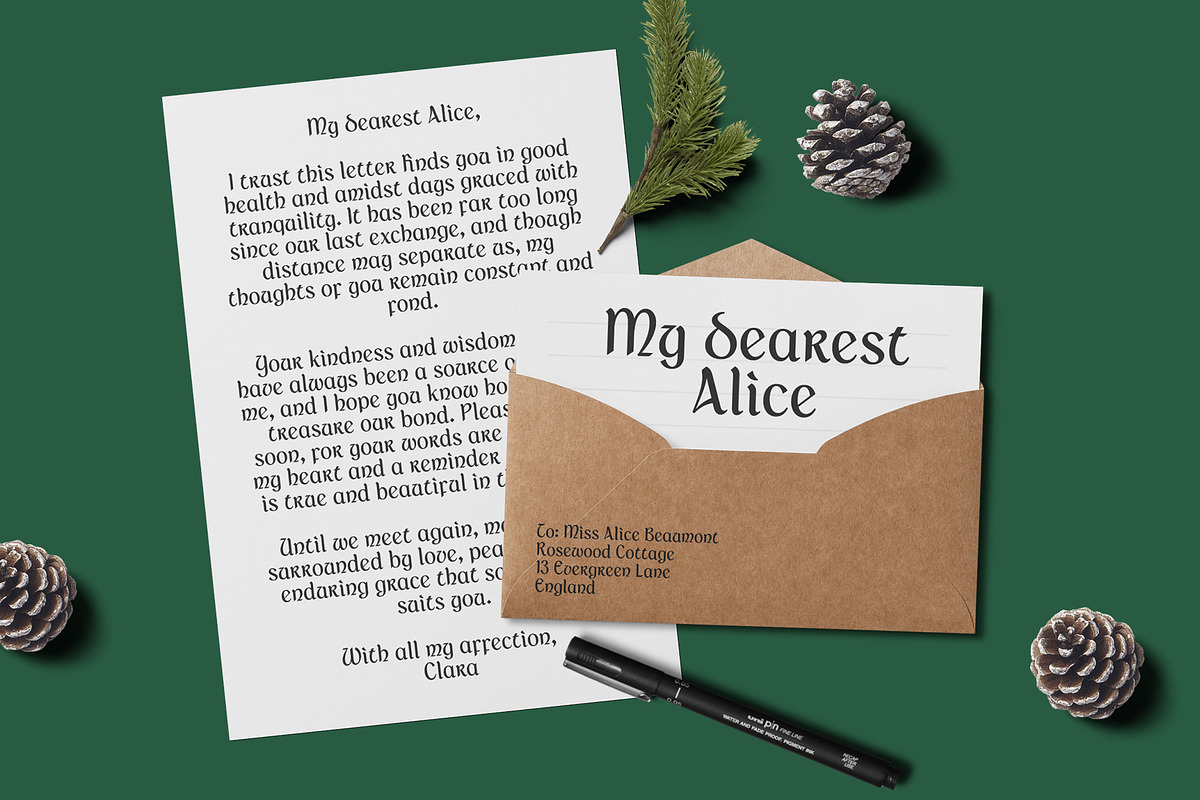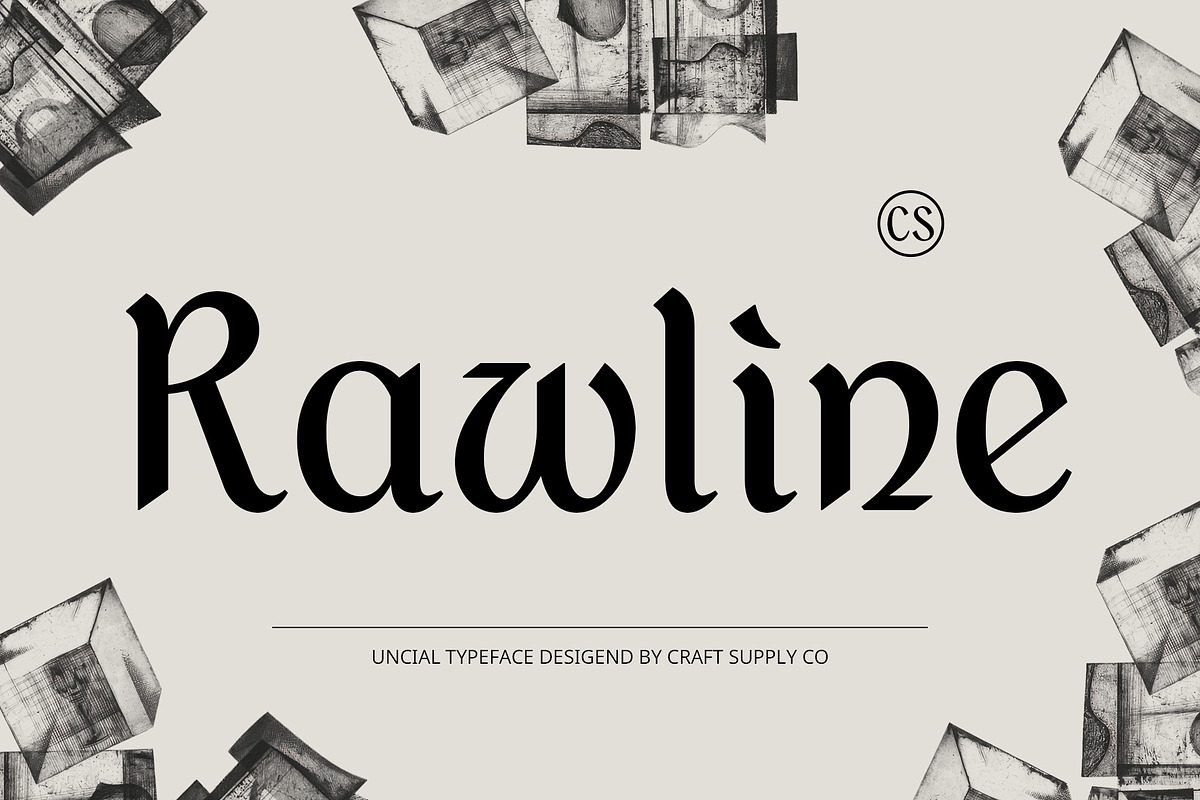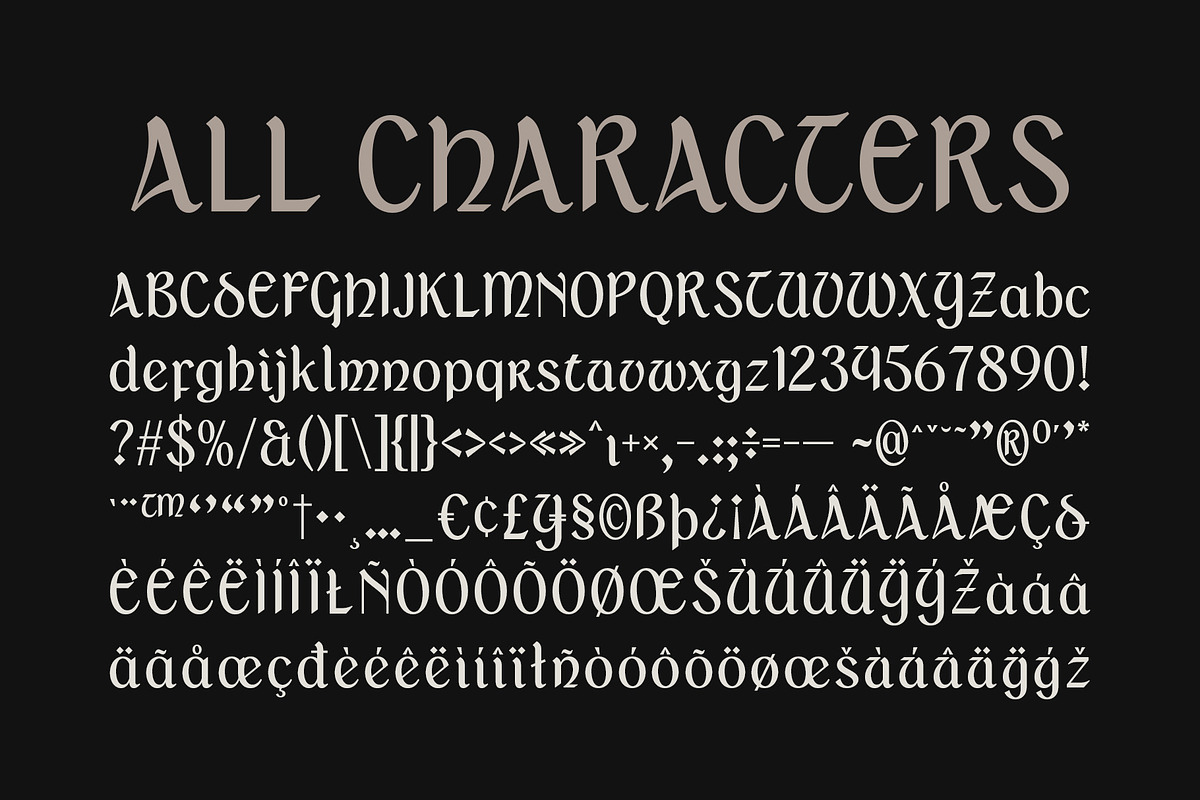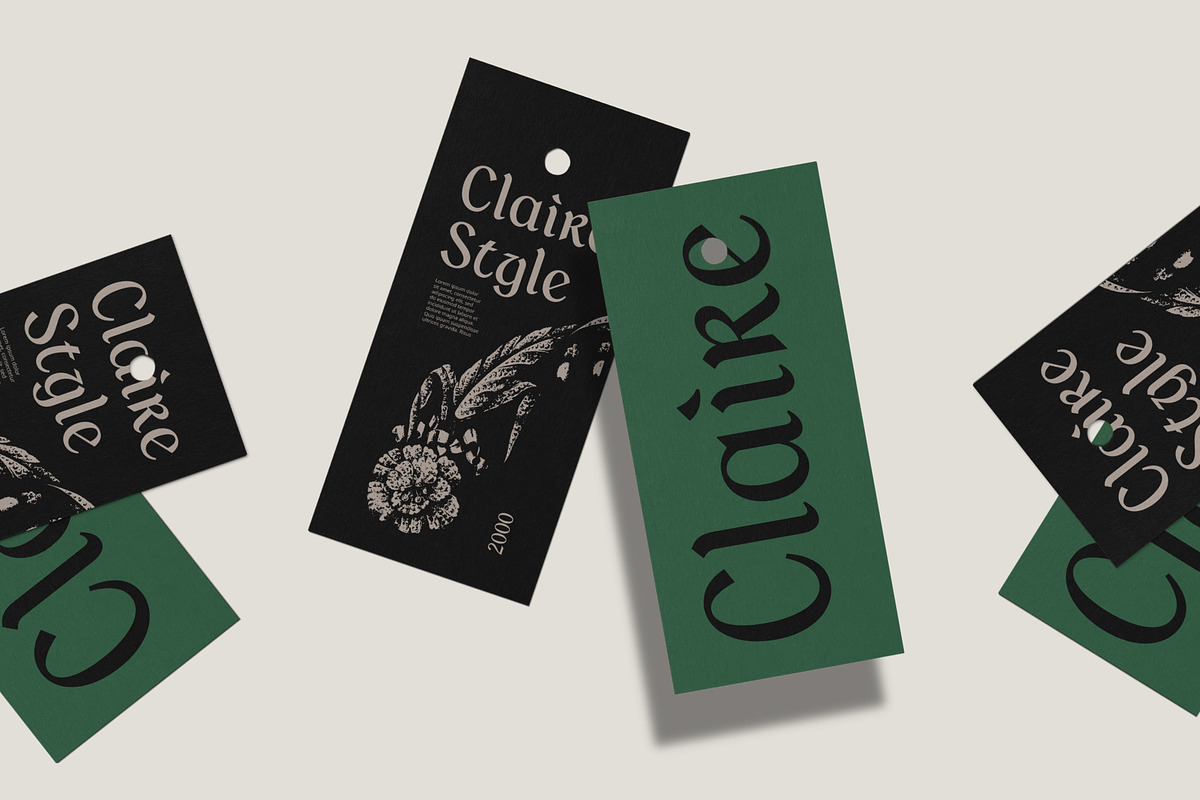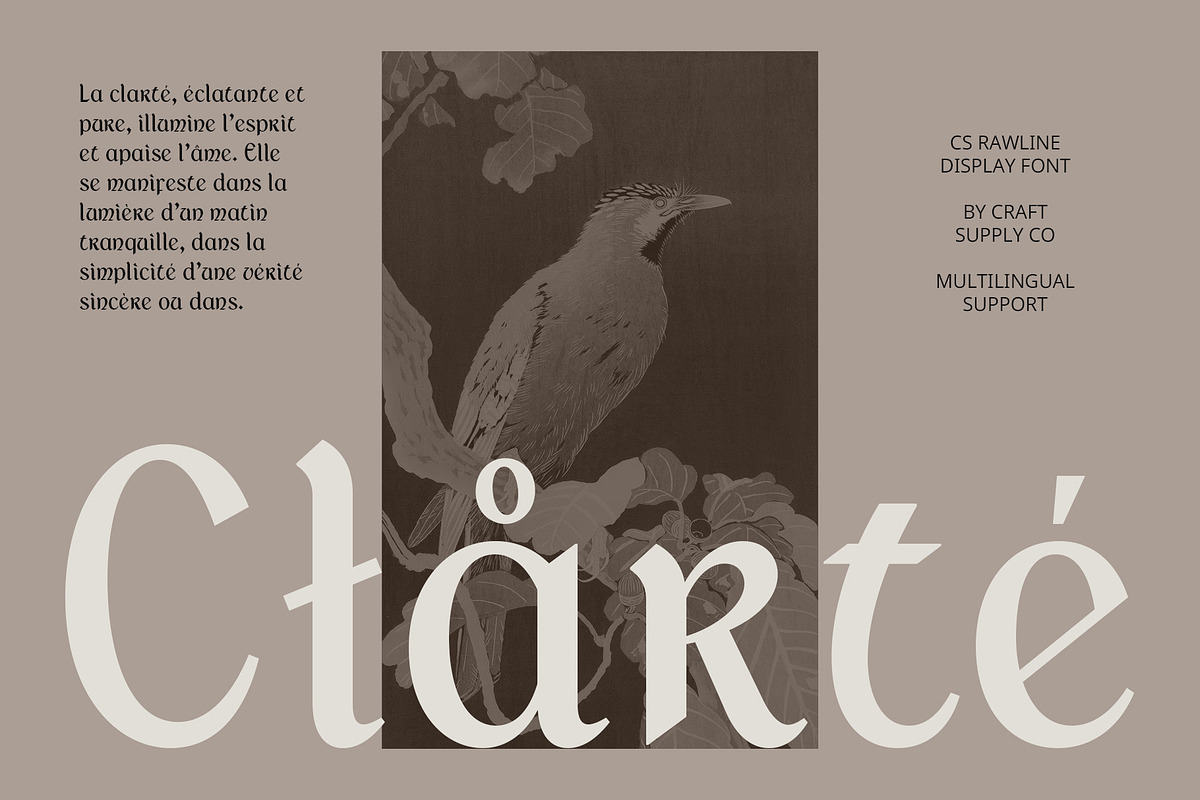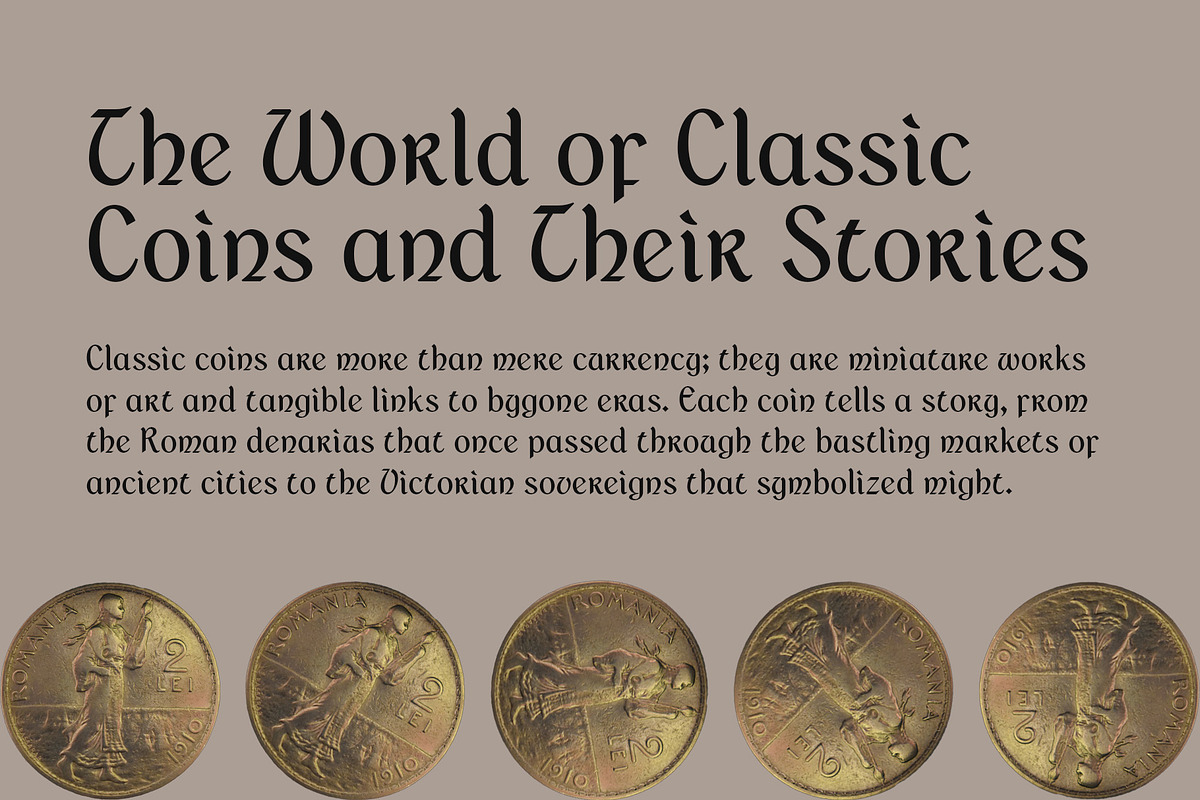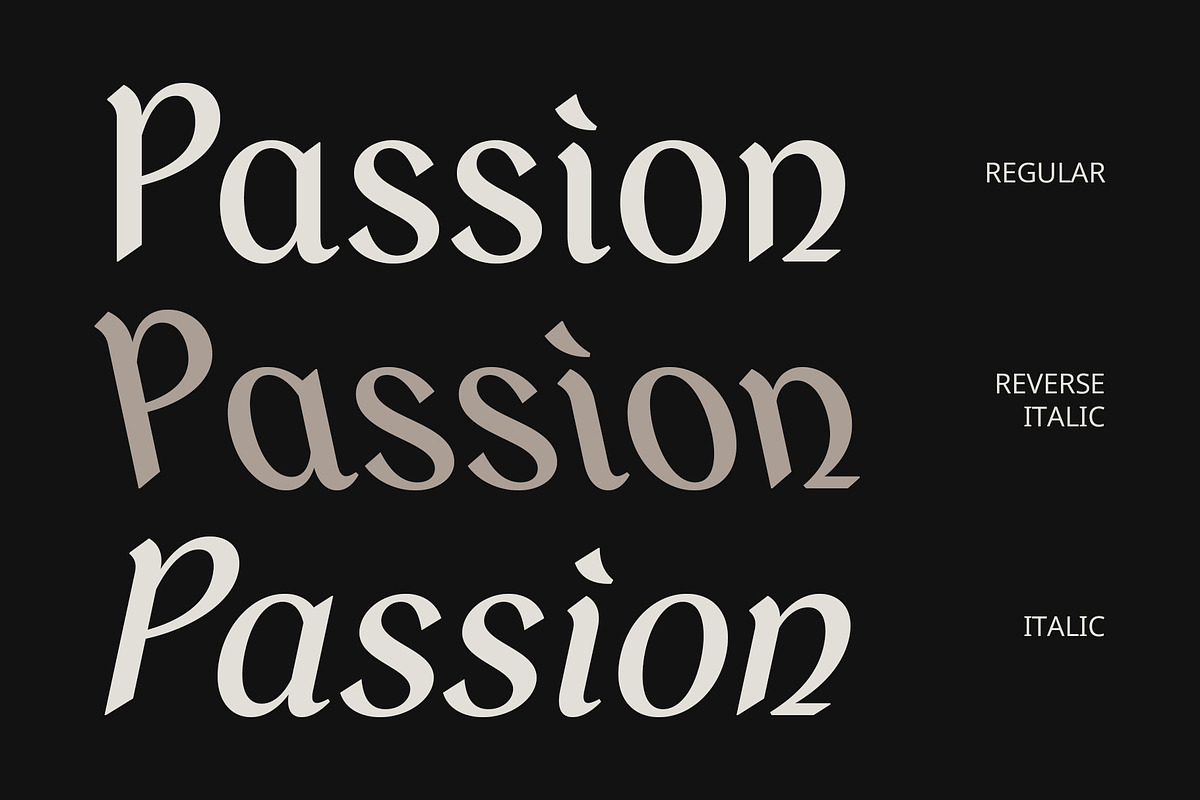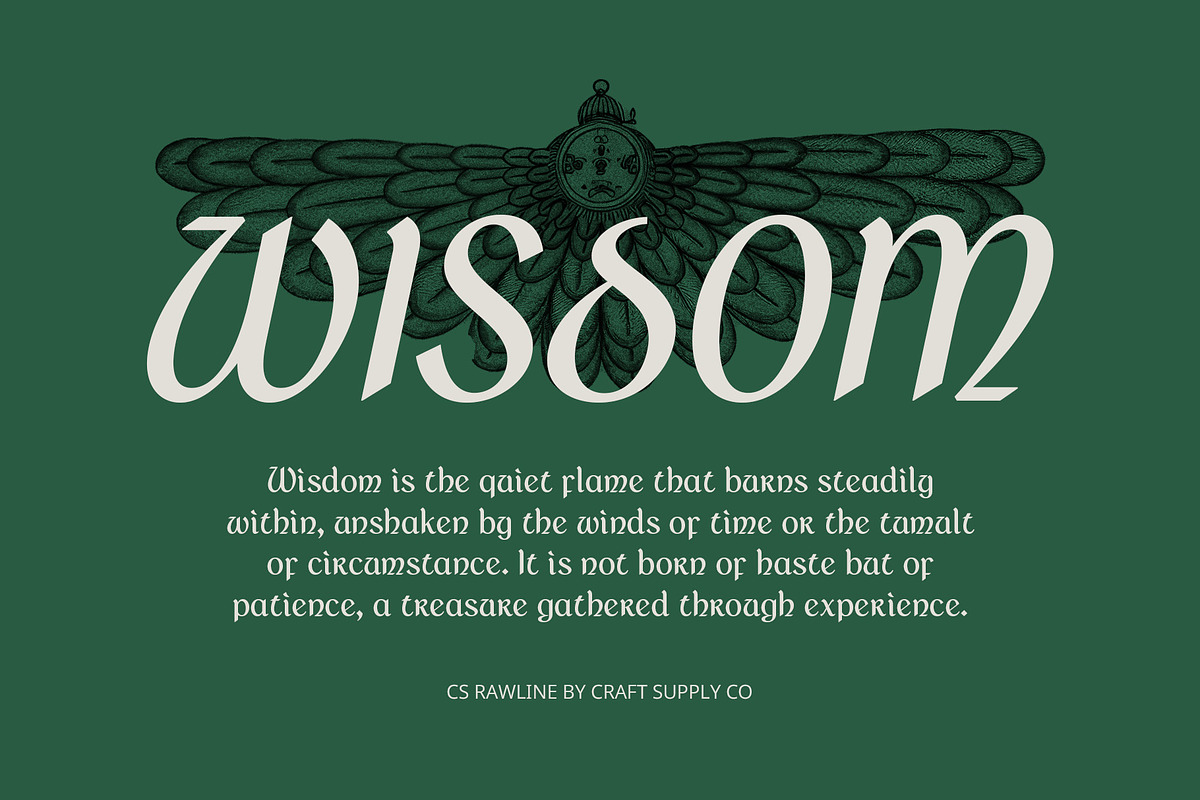
CS Rawline – Uncial Font
CS Rawline – Uncial Display Font
Timeless Elegance with Uncial Inspiration CS Rawline is a display font inspired by the classic uncial style, featuring smooth, rounded curves and distinctive letterforms that recall the beauty of ancient manuscripts. Its historical charm brings a sense of timelessness and sophistication to modern design, creating a perfect blend of tradition and elegance. Ideal for projects that seek to evoke a sense of heritage, formality, and artistic finesse, CS Rawline offers a unique, captivating aesthetic.
Classic Charm with Historical Appeal This font showcases the beauty of uncial calligraphy, with its flowing, rounded letters and unique proportions that hark back to the script used in early medieval manuscripts. CS Rawline brings a regal and scholarly quality to any design, whether it’s a luxury brand, a formal invitation, or a historically themed project. Its antique allure makes it an exceptional choice for designs that require a touch of heritage and classical elegance.
Perfect for Heritage and Formal Designs Whether used in branding for premium products, invitations for special events, or graphic designs with a nod to the past, CS Rawline conveys a refined, distinguished impression. Its fluid forms and sophisticated curves are ideal for conveying elegance, making it perfect for projects in luxury, history, and tradition. This font’s unique balance of formality and artistic flair makes it the go-to choice for high-end, heritage-driven designs.
- CS Rawline Regular
- CS Rawline Italic
- CS Rawline Reverse Italic